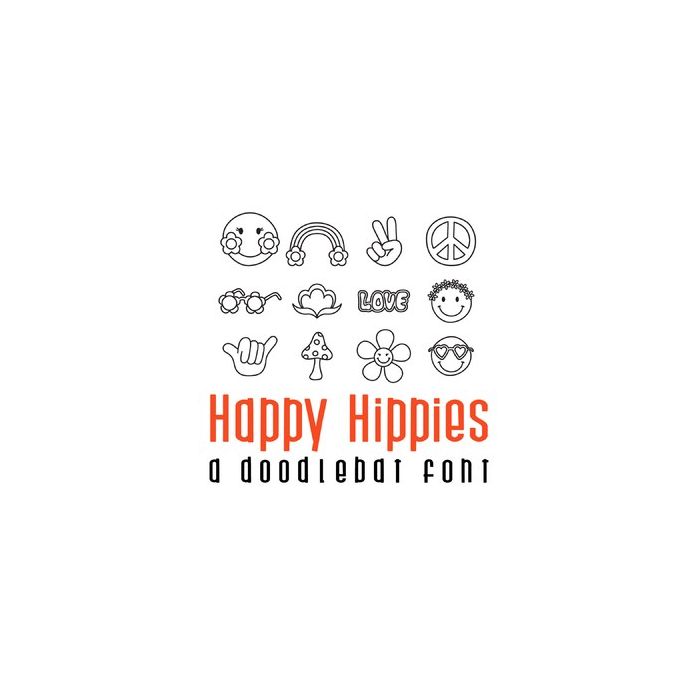
This fun doodlebat font features 26 adorable hippy and seventies themed images. Perfect for cards, gifts, decor, crafts, scrap book pages, planner stickers and more!